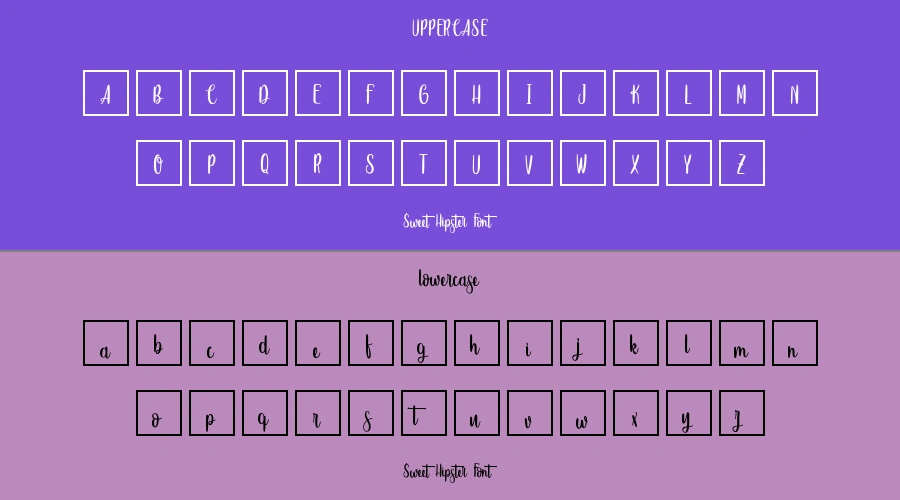
About Sweet Hipster Font
Designed with precision, Sweet Hipster Font merges rounded corners with signature style in every character. This versatility makes it particularly effective for book design, where precision and user trust directly impact communication quality. Each letterform demonstrates meticulous craftsmanship.
Technical excellence shines through elements like natural flow and case-sensitive forms, enhancing typographic versatility. In data tables settings, Sweet Hipster Font proves its worth through superior consistency. The thoughtful execution of shoulder shape and professional recognition ensures professional results.
Sweet Hipster Font |